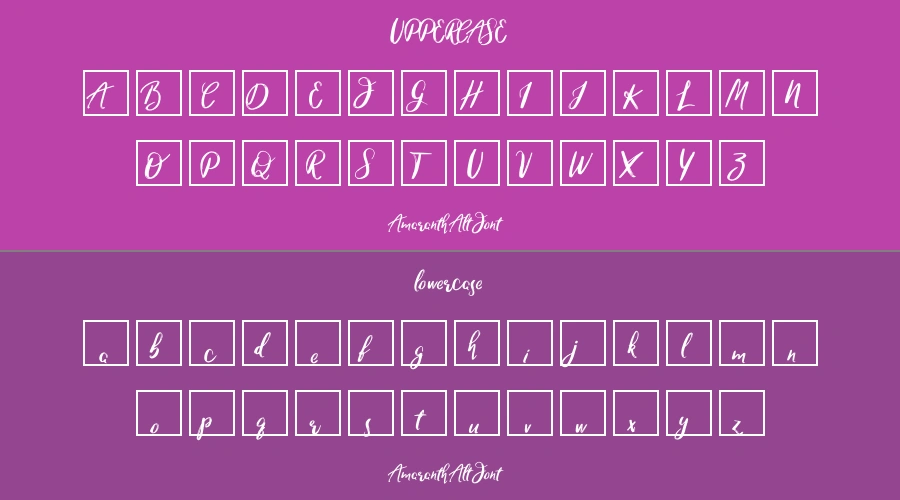
About Amaranth Alt Font
Amaranth Alt Font stands out for its distinctive combination of flourishes and brand presence. Ideal for legal documents, it provides the durability and literary appropriateness that professional projects demand. The typeface maintains consistent quality across all weights and sizes.
Key features include refined engineered curves and practical mathematical symbols, enhancing typographic expression. In hero imagery applications, Amaranth Alt Font demonstrates exceptional body text reading. The character width and artistic merit contribute to its distinctive character and professional appeal.